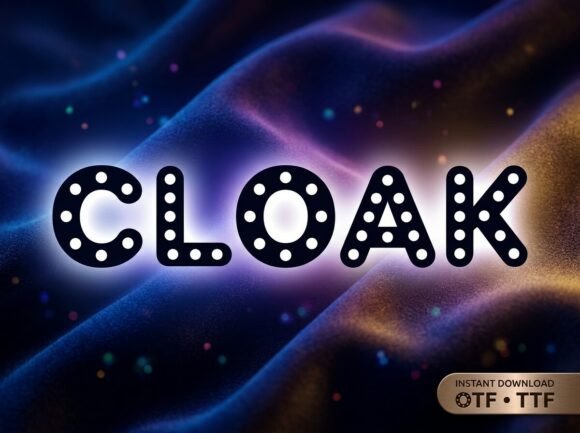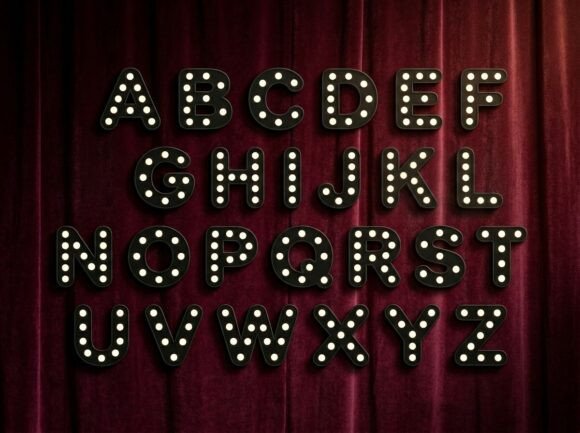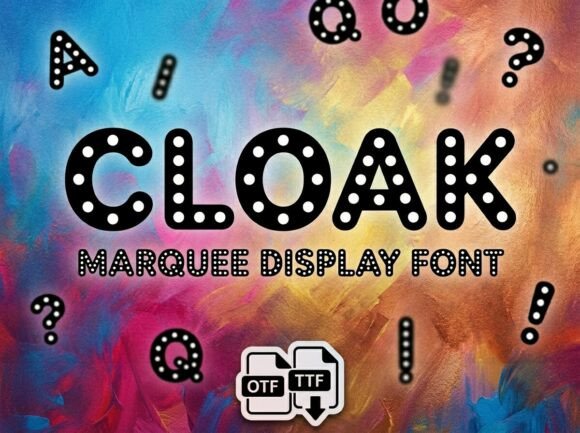
Step into the Spotlight with Cloak Font: The Ultimate Display Font for Vintage Glamour
Are you looking for a font that exudes the classic charm of vintage show business? Look no further than Cloak, a bold marquee display font designed to capture the essence of old-school Hollywood glamour. With its thick, rounded letterforms and rhythmic pattern of bright “light bulb” dots, Cloak is the perfect choice for designers and crafters who want to add a touch of Broadway-style prestige to their projects.
The Classic Theater-Sign Effect
Cloak’s unique design features a clean, high-contrast black-and-white aesthetic that is reminiscent of classic theater signs. The font’s thick, rounded letterforms are illuminated by a rhythmic pattern of bright “light bulb” dots, creating a mesmerizing effect that is sure to grab attention. Whether you’re designing for a circus-themed event, a cinematic title, or a retro party invitation, Cloak’s classic theater-sign effect is sure to deliver a sense of nostalgia and playfulness.
Cloak is an extraordinary choice for designers and crafters who want to add a touch of vintage glamour to their projects. The font’s bold, eye-catching design makes it perfect for high-impact social media headers, festive celebration designs, and nostalgic boutique branding. With Cloak, you can create designs that are both playful and sophisticated, making it an ideal choice for a wide range of projects.
Use Cases for Cloak Font
So, what can you use Cloak for? The possibilities are endless! Here are a few ideas to get you started:
- Circus-themed event branding: Create eye-catching posters, flyers, and social media graphics that capture the excitement and energy of the circus.
- Cinematic titles: Add a touch of old-school Hollywood glamour to your film or video titles with Cloak’s classic theater-sign effect.
- Retro party invitations: Create invitations that are sure to stand out with Cloak’s bold, playful design.
- High-impact social media headers: Make a statement with Cloak’s bold, eye-catching design.
- Nostalgic boutique branding: Create a brand identity that is both playful and sophisticated with Cloak’s vintage-inspired design.
Why Choose Cloak Font?
So, why choose Cloak font for your next project? Here are just a few reasons:
- Unique design: Cloak’s classic theater-sign effect is sure to grab attention and add a touch of vintage glamour to your projects.
- Versatile: Cloak is perfect for a wide range of projects, from circus-themed event branding to cinematic titles and retro party invitations.
- Easy to use: Cloak is a straightforward font to use, making it perfect for designers and crafters of all skill levels.
- High-quality: Cloak is a high-quality font that is designed to deliver exceptional results.
In conclusion, Cloak font is an exceptional choice for designers and crafters who want to add a touch of vintage glamour to their projects. With its unique design, versatility, and ease of use, Cloak is perfect for a wide range of projects. Whether you’re designing for a festive celebration or a nostalgic boutique, Cloak delivers a sense of Broadway-style prestige and playful, vintage energy to every headline. So why wait? Step into the spotlight with Cloak font today!
- Bold marquee display font
- Thick, rounded letterforms
- Rhythmic pattern of bright “light bulb” dots
- Clean, high-contrast black-and-white aesthetic
- Perfect for circus-themed event branding, cinematic titles, retro party invitations, and high-impact social media headers